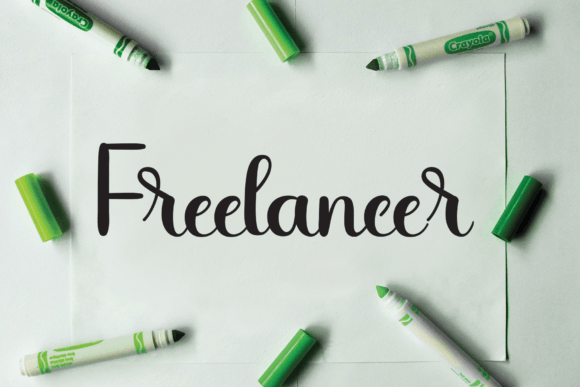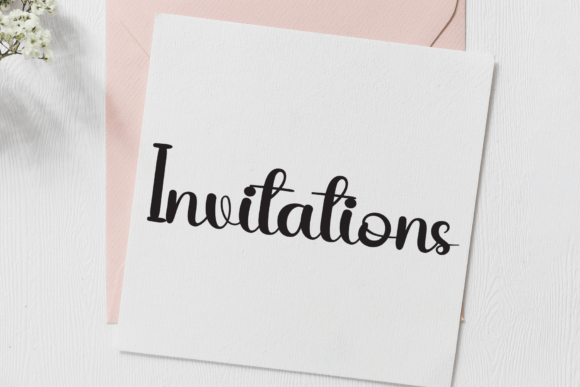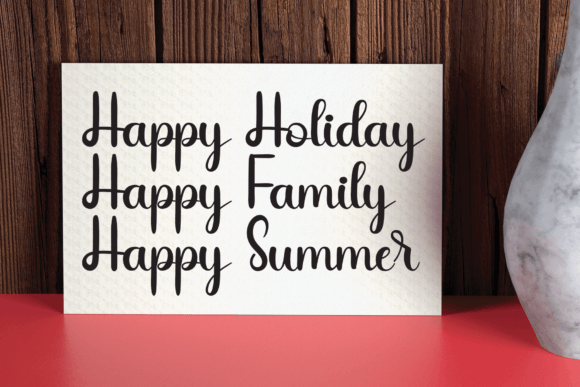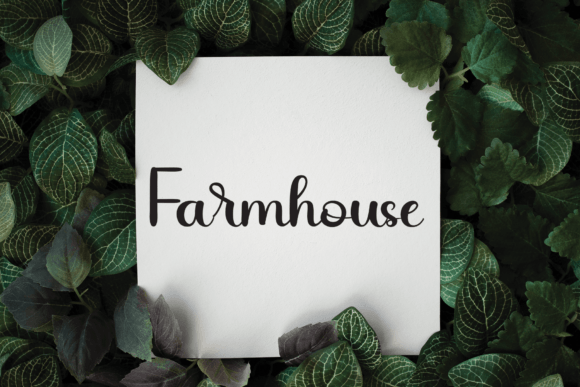
Introducing Best Friend Font: Elevate Your Designs with Elegance and Sophistication
In the world of typography, a beautiful script font can make all the difference in creating stunning designs that capture the essence of a brand, product, or message. If you’re a designer, crafter, or simply someone who appreciates the art of beautiful writing, you’re in luck. Best Friend Font is a gorgeous script font that is sure to take your designs to the next level. With its modern and unique shape, natural writing style, and versatility, Best Friend Font is the perfect addition to your typographic collection.
What Makes Best Friend Font So Special?
Best Friend Font is a beautiful script font that boasts a modern and unique shape, setting it apart from other fonts in its category. Its natural writing style gives it a personal and approachable feel, making it perfect for a wide range of design applications. Whether you’re looking to create stunning branding, web design, editorial prints, crafts, or quotes, Best Friend Font is the ideal choice. Its elegant and sophisticated appearance is sure to impress your audience and leave a lasting impression.
Endless Design Possibilities with Best Friend Font
One of the best things about Best Friend Font is its incredible versatility. This font can be used for a wide range of design projects, including:
- Logotypes: Create a lasting impression with a custom logotype that showcases your brand’s personality and style.
- Wedding Invitations: Make your special day even more memorable with beautifully designed wedding invitations that feature Best Friend Font.
- Romantic Cards: Express your feelings with elegant and heartfelt romantic cards that are sure to touch the recipient’s heart.
- Labels and Packaging: Add a touch of sophistication to your product labels and packaging with Best Friend Font.
- Name Spelling: Create custom name tags, signs, or gifts with beautifully written names that make a thoughtful and personalized gesture.
Bring Your Creative Ideas to Life with Best Friend Font
Best Friend Font is more than just a font – it’s a tool that can help you unlock your full creative potential. With its elegant and sophisticated appearance, you can add a touch of class and refinement to any design project. Whether you’re a seasoned designer or a crafty DIY enthusiast, Best Friend Font is sure to inspire you to create something truly special.
Imagine being able to:
- Create stunning branding that reflects your business’s personality and values.
- Design beautiful web pages that engage and captivate your audience.
- Develop editorial prints that showcase your writing style and creativity.
- Craft unique and personalized gifts that are sure to delight your loved ones.
Why Choose Best Friend Font?
With so many fonts available, why choose Best Friend Font? Here are just a few reasons why this font stands out from the rest:
- Unique and Modern Design: Best Friend Font features a unique and modern design that is sure to make your designs stand out.
- Natural Writing Style: The font’s natural writing style gives it a personal and approachable feel that is perfect for a wide range of design applications.
- Versatility: Best Friend Font can be used for a wide range of design projects, from branding and web design to editorial prints and crafts.
- Elegance and Sophistication: The font’s elegant and sophisticated appearance is sure to add a touch of class and refinement to any design project.
In conclusion, Best Friend Font is a beautiful script font that is sure to elevate your designs to new heights. With its modern and unique shape, natural writing style, and versatility, this font is perfect for designers, crafters, and anyone who appreciates the art of beautiful writing. Whether you’re looking to create stunning branding, web design, editorial prints, crafts, or quotes, Best Friend Font is the ideal choice. So why wait? Add Best Friend Font to your typographic collection today and watch your creative ideas come to life!